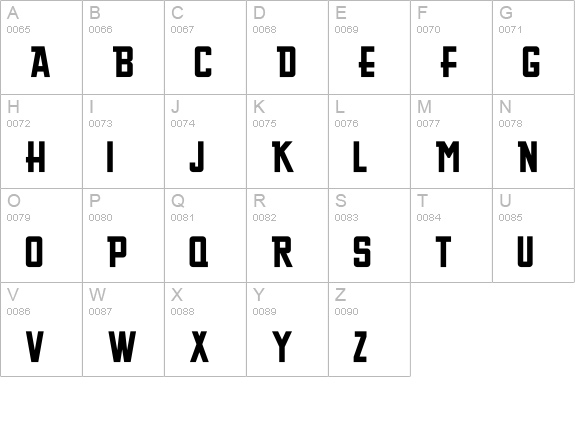
GreasySpoonMenu Font Details
Introducing GreasySpoonMenu font - a delightful and whimsical typeface that exudes a charming vintage vibe. This font is perfect for adding a touch of nostalgia and playfulness to your designs. With its quirky and unique style, GreasySpoonMenu font is sure to stand out and capture the attention of your audience. What sets GreasySpoonMenu font apart is not only its retro-inspired aesthetic but also its versatility. Whether you're working on a menu design, branding project, or any other creative endeavor, this font will add a touch of character and personality to your work. And the best part? GreasySpoonMenu font is available for free download at FontsMarket.com. That's right, you can easily access this charming font and elevate your designs without any cost. Don't miss out on the opportunity to enhance your creations with the delightful GreasySpoonMenu font today!